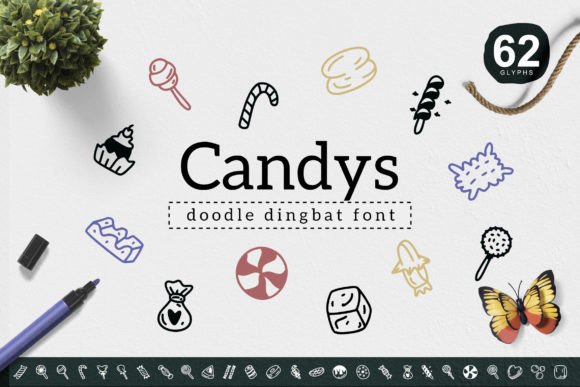
Fonts are the cornerstone of any visual aesthetic, serving as the architect of words and ideas. In the realm of dingbats fonts, few stand as tall as the illustrious Candys font, a visual masterpiece meticulously crafted by the renowned YandiDesigns. Candys is not merely a font; it's an adventure, an invitation to let your imagination run wild.
Whether you're a designer seeking to infuse your creations with a touch of whimsy or a casual user looking to add a dash of fun to your digital endeavors, Candys is your perfect companion. Its playful and versatile nature knows no bounds, lending itself effortlessly to a kaleidoscope of projects, from cheerful stickers that bring smiles to faces to eye-catching posters that demand attention.
With Candys, the possibilities are endless. Unleash your creativity and let the font weave its magic, transforming ordinary words into captivating visual narratives. Adorn your t-shirts with quirky designs that spark conversations, or design cards that carry your heartfelt messages with a touch of charm. Candys is your trusty sidekick, ready to elevate your creations to new heights of visual delight.
Step into a world where imagination reigns supreme, where every letter tells a story and every symbol dances with joy. Embrace the Candys font, and let your designs blossom into a symphony of visual artistry. Say goodbye to mundane typography and embrace a font that ignites the imagination and sets your creativity ablaze.
But don't take our word for it. Allow Candys to speak for itself. Dive into the realm of visual wonders, where every stroke of the pen unveils a universe of possibilities. Let Candys be your muse, your guiding light in the realm of visual expression.
So, what are you waiting for? Embark on this typographic odyssey and let Candys transform your creative vision into a reality. Let the font ignite your imagination and embark on a journey of visual storytelling like never before. Dare to be different, dare to be bold, and let Candys guide you to design greatness.